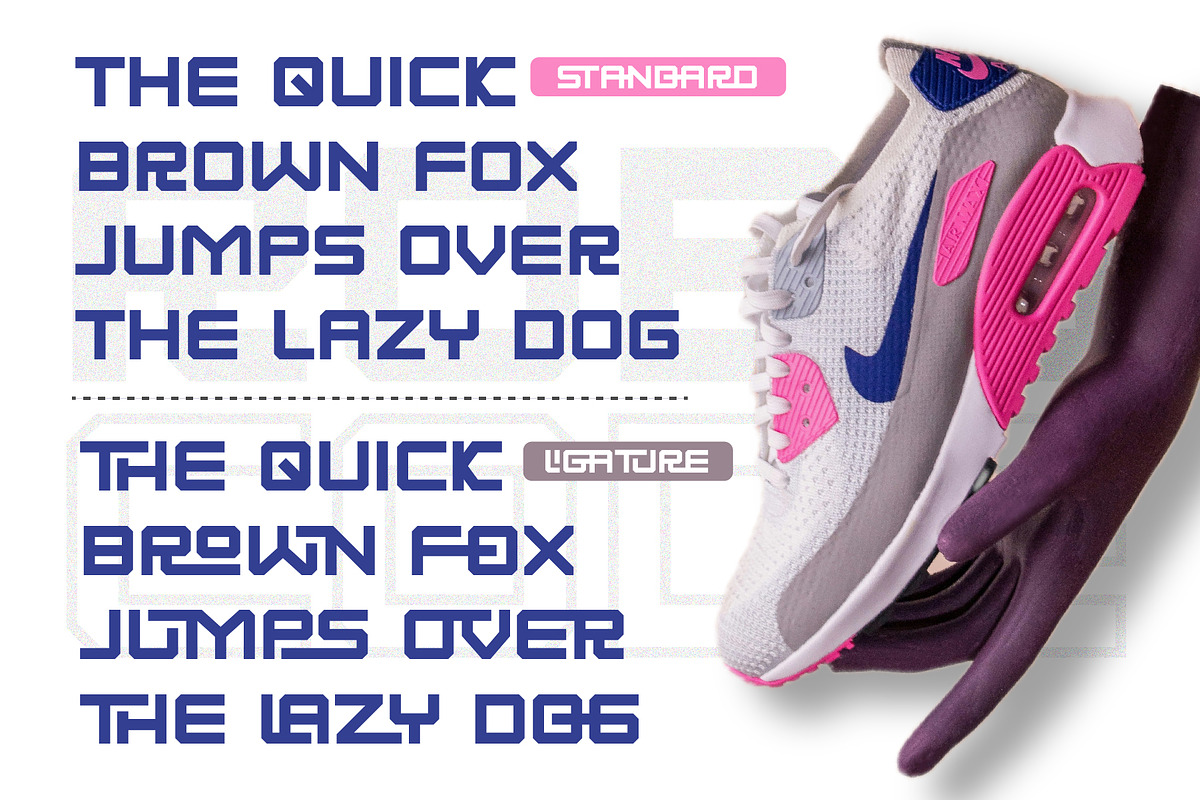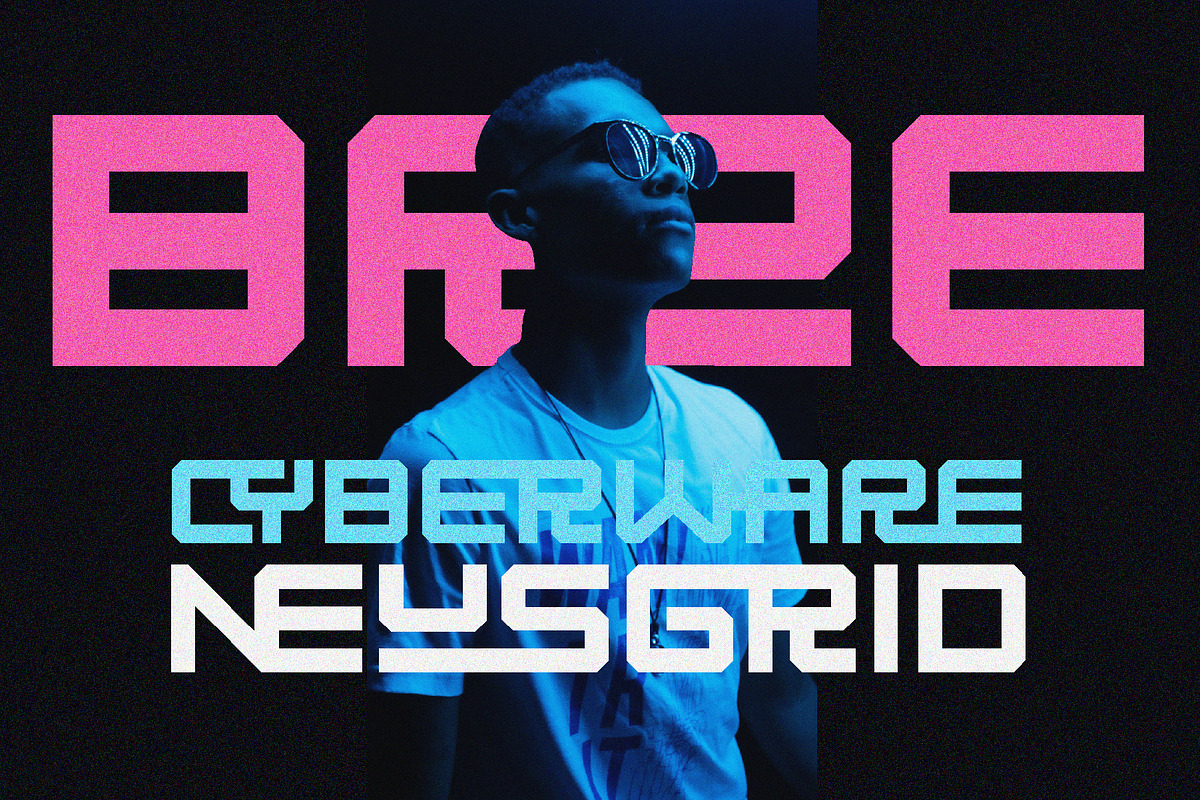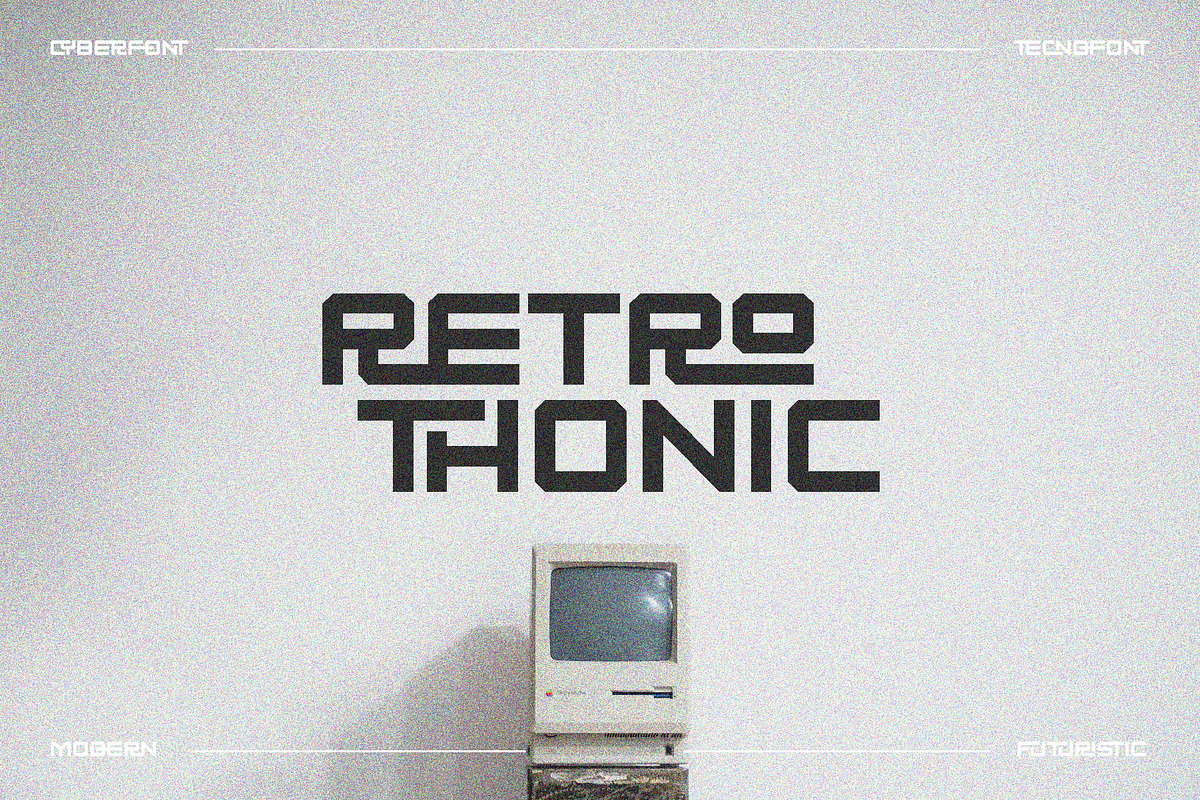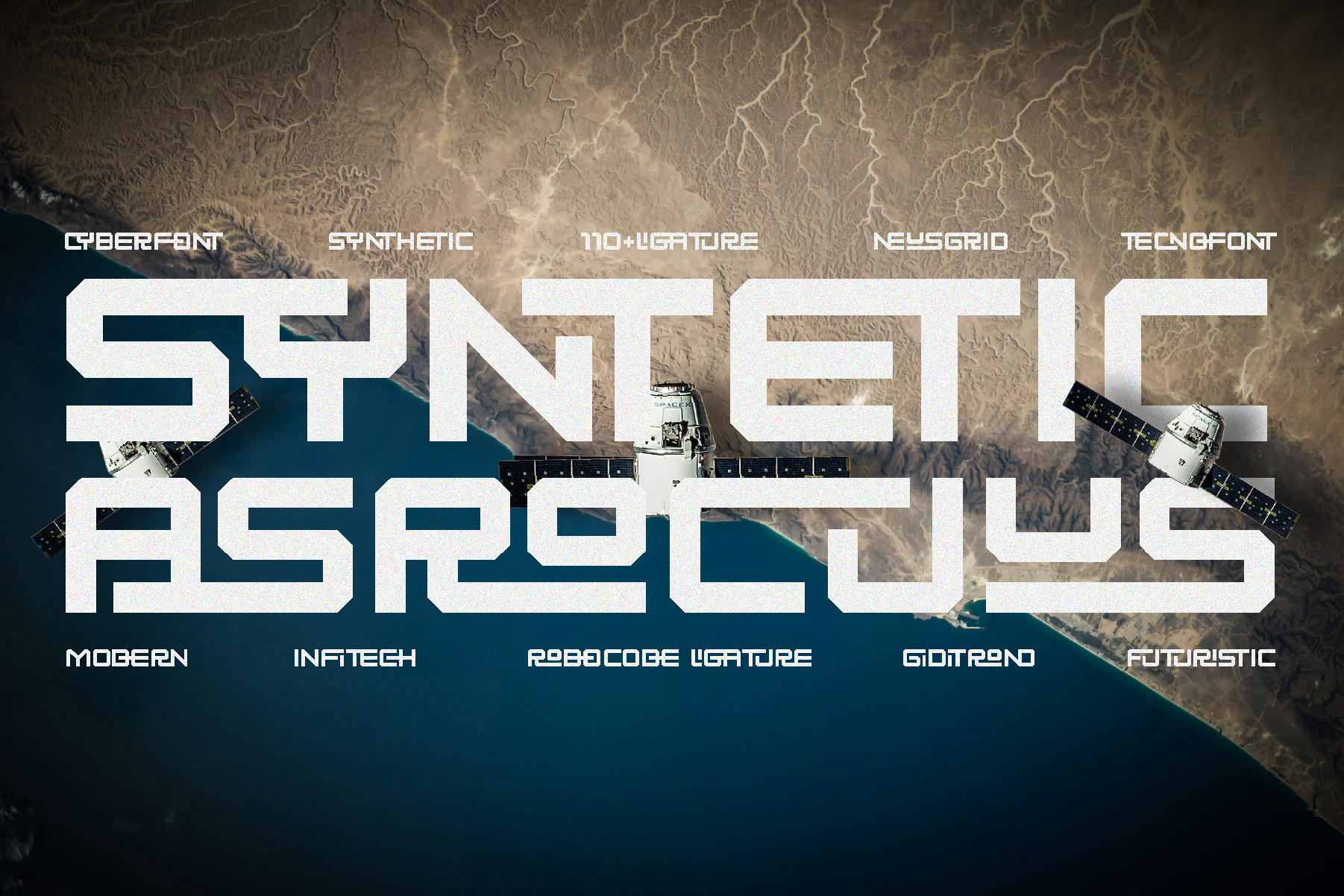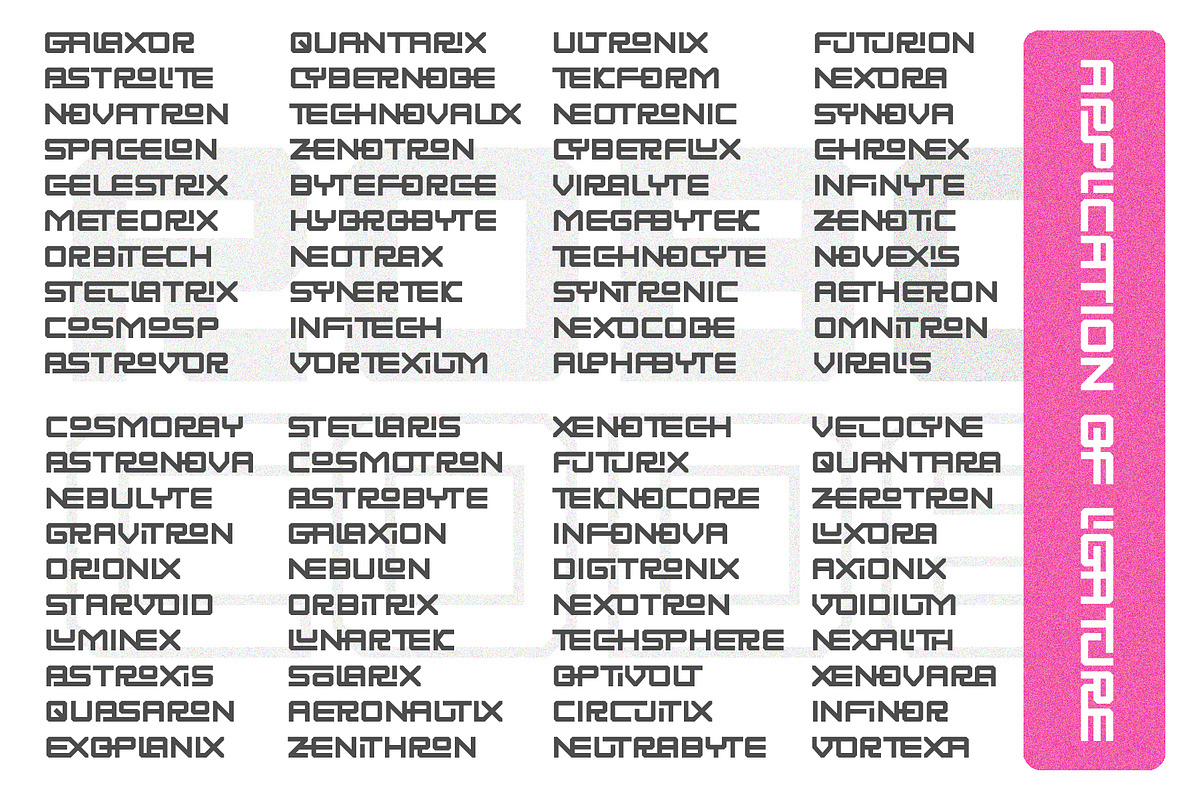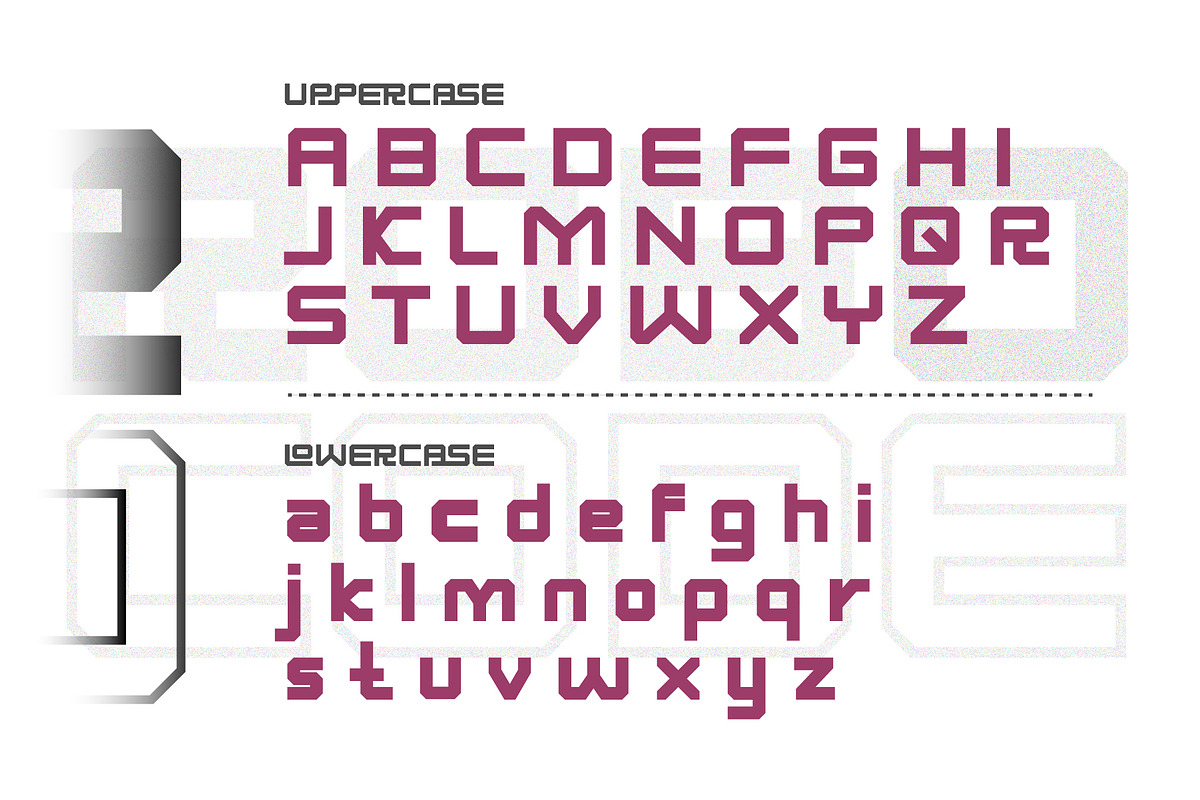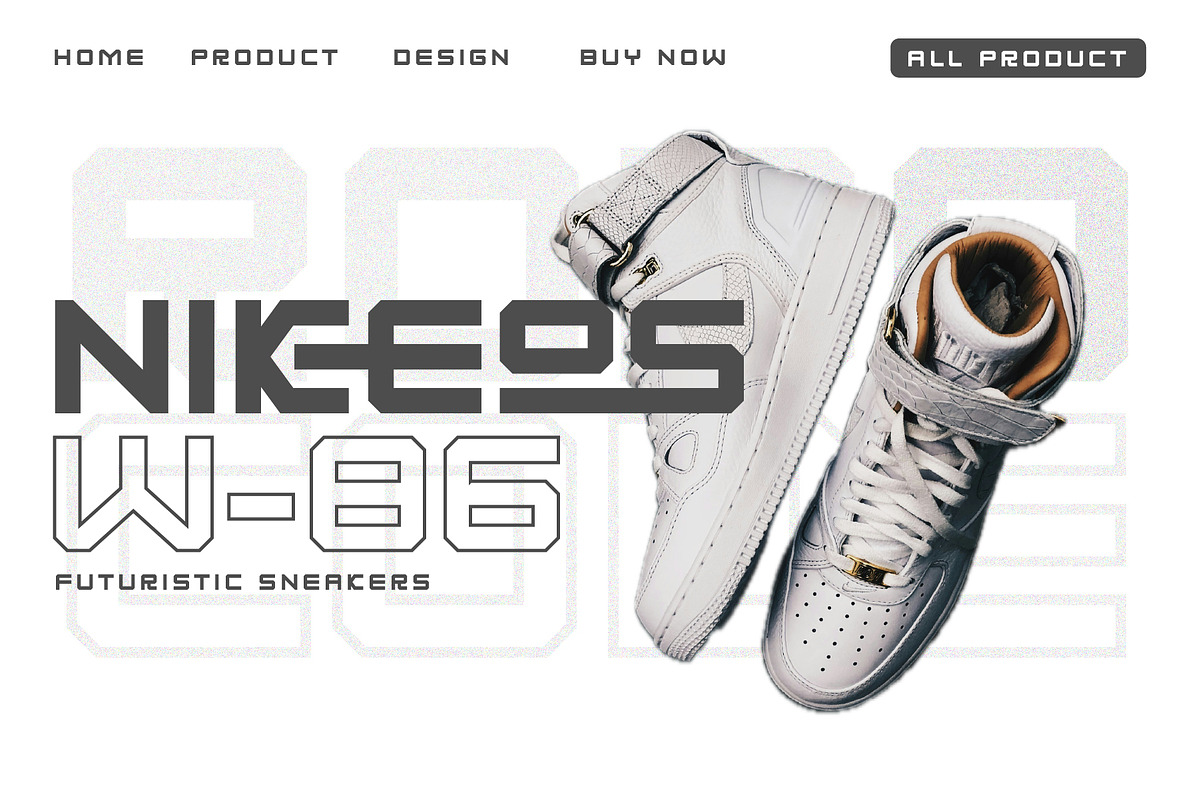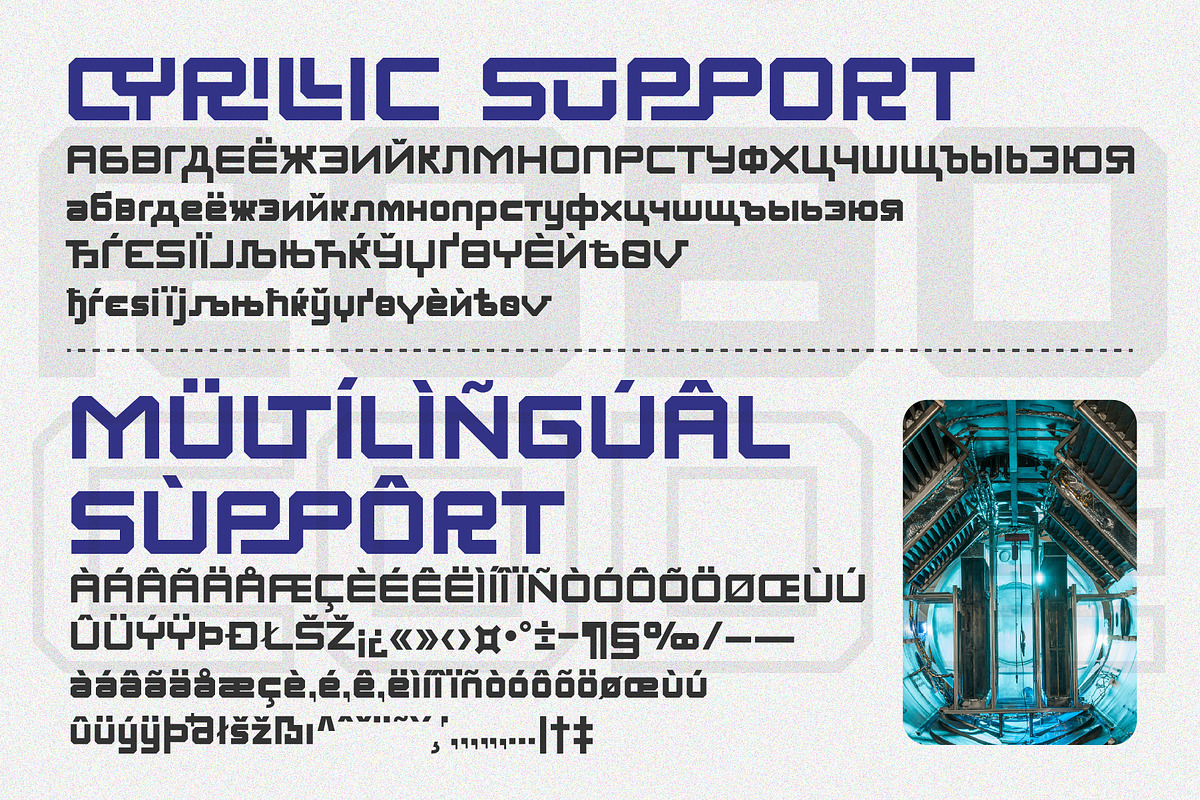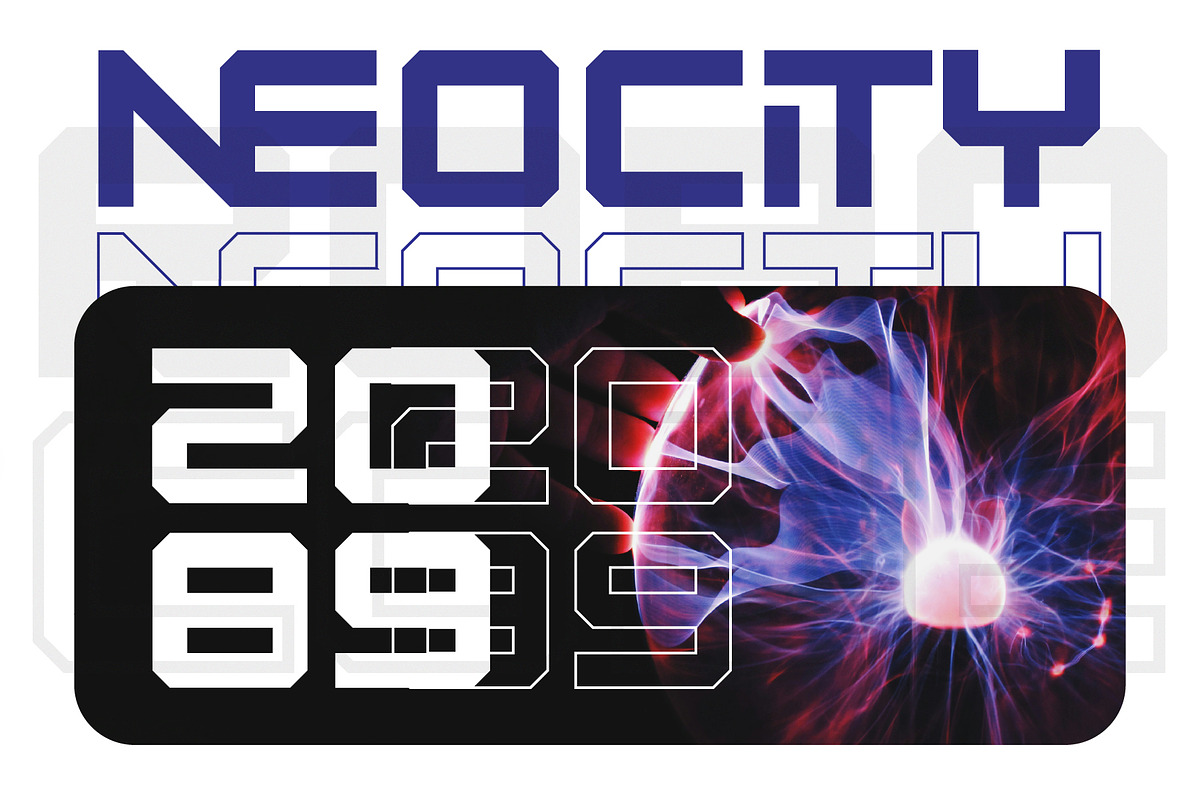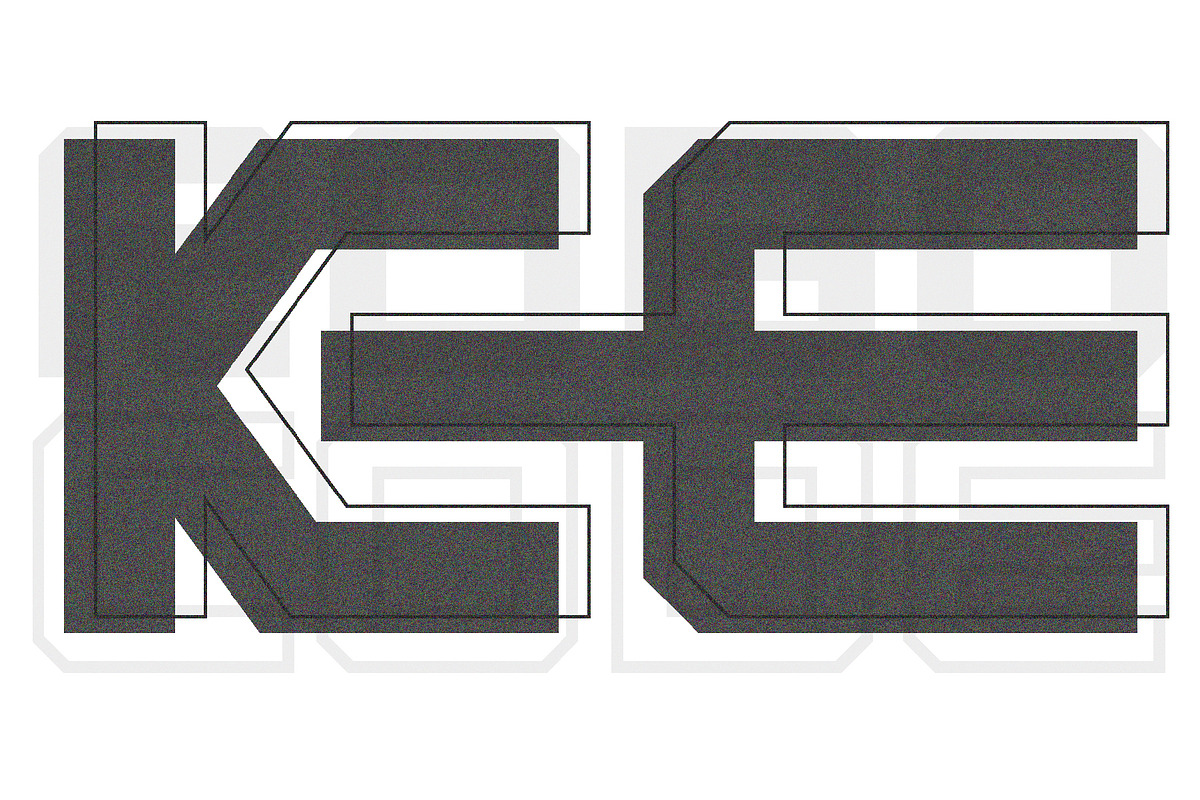
Syntetic Asrocuus Ligature Font
Syntetic Asrocuus by Erifqizefont is a cutting-edge ligature font designed with a bold, symmetrical, and futuristic aesthetic, perfect for projects with a techno vibe. Its sleek, geometric forms give it a modern, innovative look that embodies the essence of technology and the future. With over 110 ligatures, Syntetic Asrocuus offers a seamless and dynamic reading experience, while its multilingual and Cyrillic support ensures accessibility for a global audience. Ideal for tech-driven branding, UI design, and futuristic projects, Syntetic Asrocuus delivers a sharp, modern touch that stands out in any creative application.